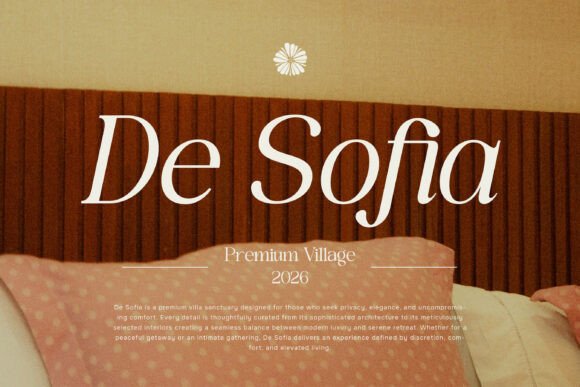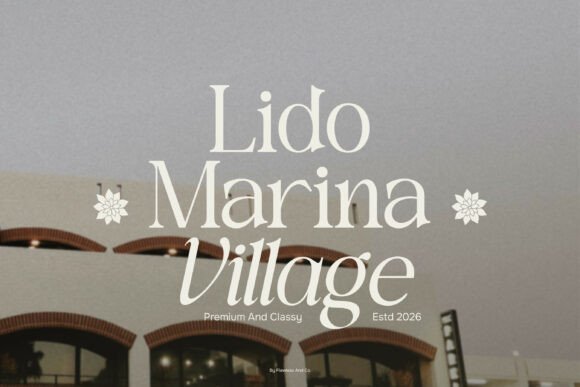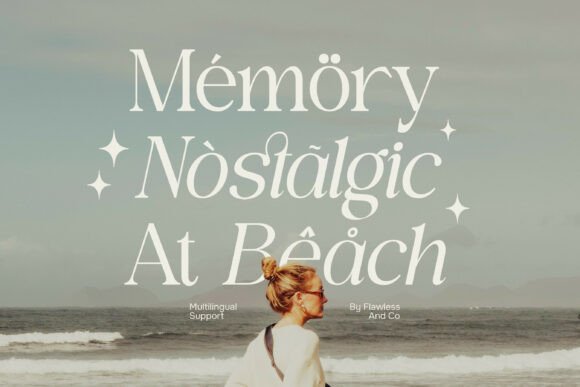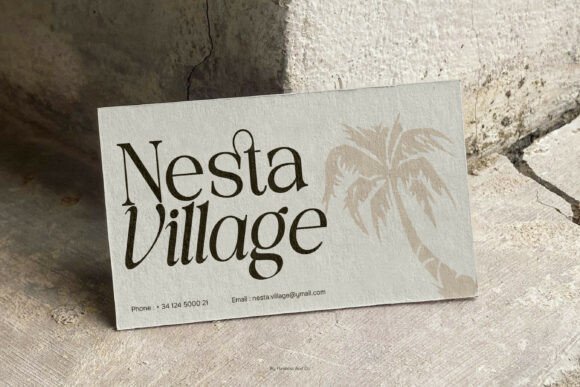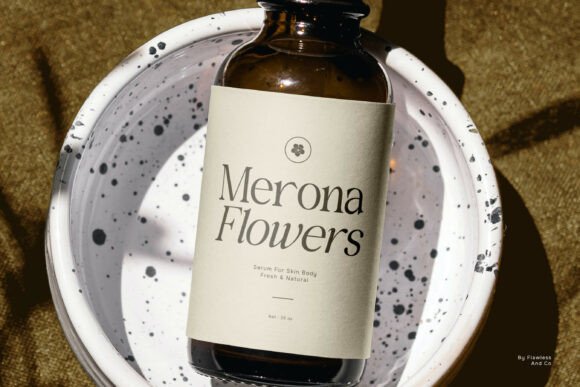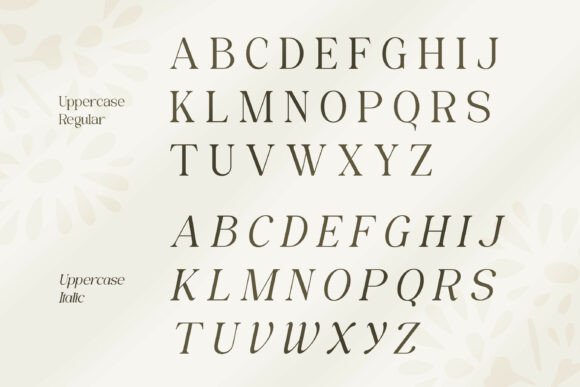
Introduction to Romes Dawn Font
Romens Dawn is a retro serif duo font featuring both regular and italic styles, designed to create a beautiful and harmonious typographic appearance.
Inspired by classic vintage lettering, this font combines elegant serif details with a timeless retro aesthetic, delivering a refined and expressive visual style The pairing of regular and italic styles allows for greater flexibility in design, making it easy to create contrast, emphasis, and dynamic layouts.